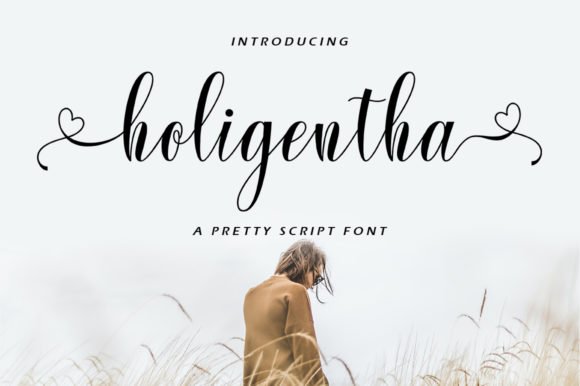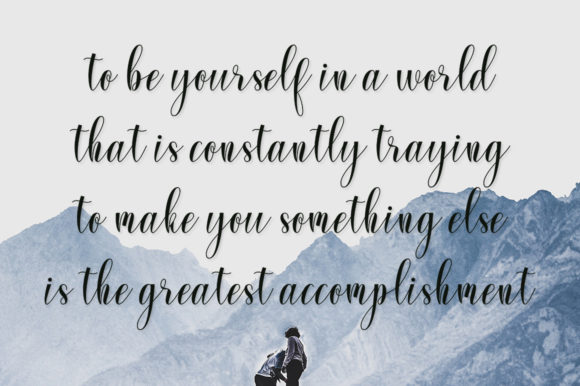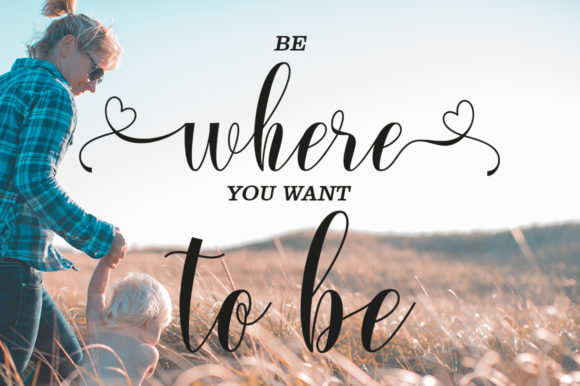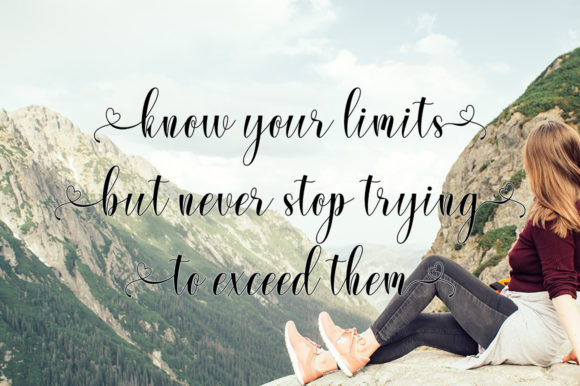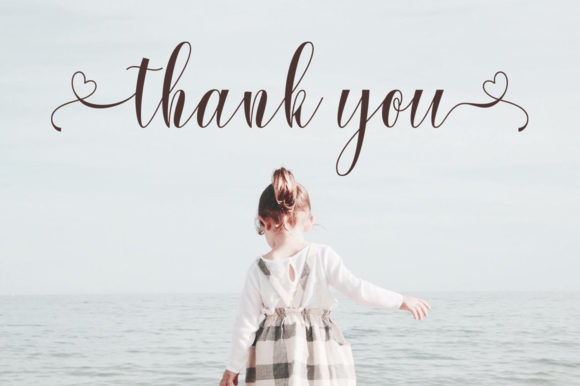
The Perfect Brush Stroke: Introducing Holigentha Font
There’s something magical about the first time you sit down with a blank sheet of paper, a pen in hand, and let your creativity flow. The scratch of the nib on paper, the gentle dance of ink as it meets the page, and the sense of possibility that comes with it. This is the moment when a design comes alive, and the right font can make all the difference.
Enter the Holigentha Font, a beautiful, elegant script font that adds a touch of handwritten charm to any design. Whether you’re crafting wedding invitations, thank-you cards, or logos, this font is the perfect choice for adding a personal, human touch. With its smooth lines, gorgeous glyphs, and stunning alternates, Holigentha Font is a valuable asset for any designer looking to elevate their work.
- Font Family: Holigentha Font is a unique, custom-designed font family with a distinctive and elegant style.
- Unique Characteristics: Features intricate details, ornate flourishes, and subtle texture, making it perfect for luxury branding, invitations, and high-end publications.
I recently had the chance to work with the Holigentha Font, and I’m excited to share my honest thoughts.
- The Holigentha Font has a unique and elegant feel to it. The letterforms are well-designed and visually appealing.
- The font is highly versatile and can be used in a variety of contexts, from formal to informal.
- The font family includes multiple weights and styles, which makes it easy to customize and adapt to different design needs.
What doesn’t work so well: ⚠️
- The font may be a bit too ornate for some projects. The intricate details can make it difficult to read in certain contexts.
- The font family is quite large, which can be overwhelming to navigate.
- Some of the font styles may not be as consistent as I would like, which can affect the overall coherence of a design.
Overall, I think the Holigentha Font is a solid choice for designers looking for a unique and elegant font. However, it’s not without its limitations. With careful consideration and selection of the right styles, I believe this font can be a great addition to any design project.
Tip: Use the Holigentha font for headings and titles to add a touch of elegance to your designs.
Tip: Use the Holigentha font for typography-heavy designs, such as posters or brochures.
Tip: Use the Holigentha font for presentations and reports to add a touch of sophistication.
The Holigentha font is ideal for:
- Typography-heavy designs
- Formal presentations and reports
- Posters and brochures